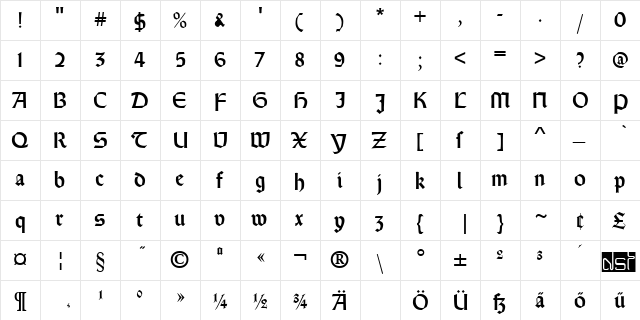
Weiss Rundgotisch Regular
Design Context for Weiss Rundgotisch Typeface
Weiss Rundgotisch is a composed and adaptable typeface that performs quietly and consistently across a wide range of design contexts.